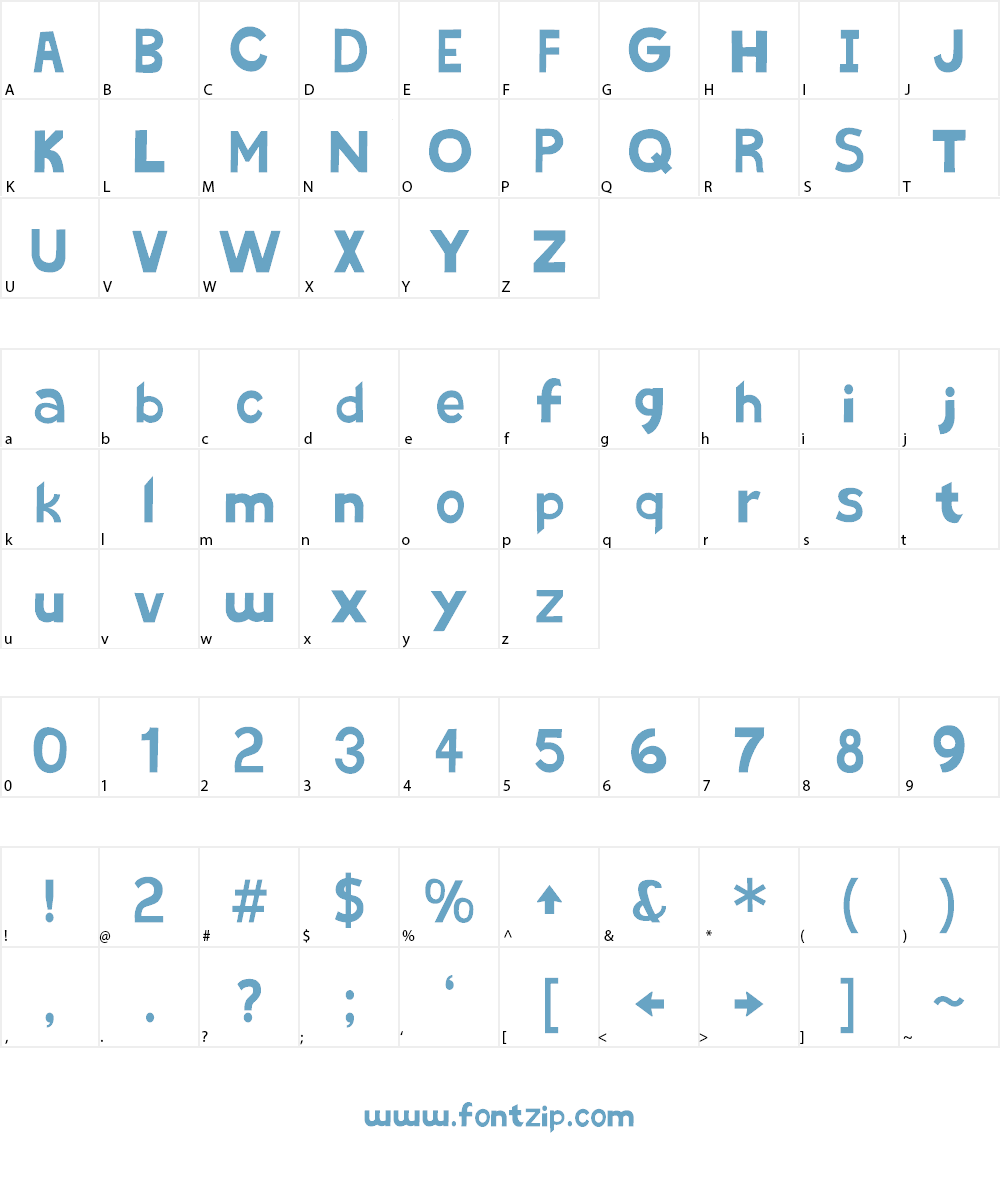
Candy Highway Nova is a brand new cartoon-style highway sign font brought to you by Heaven Castro Studios.
This font is a part of Remade Fonts series.